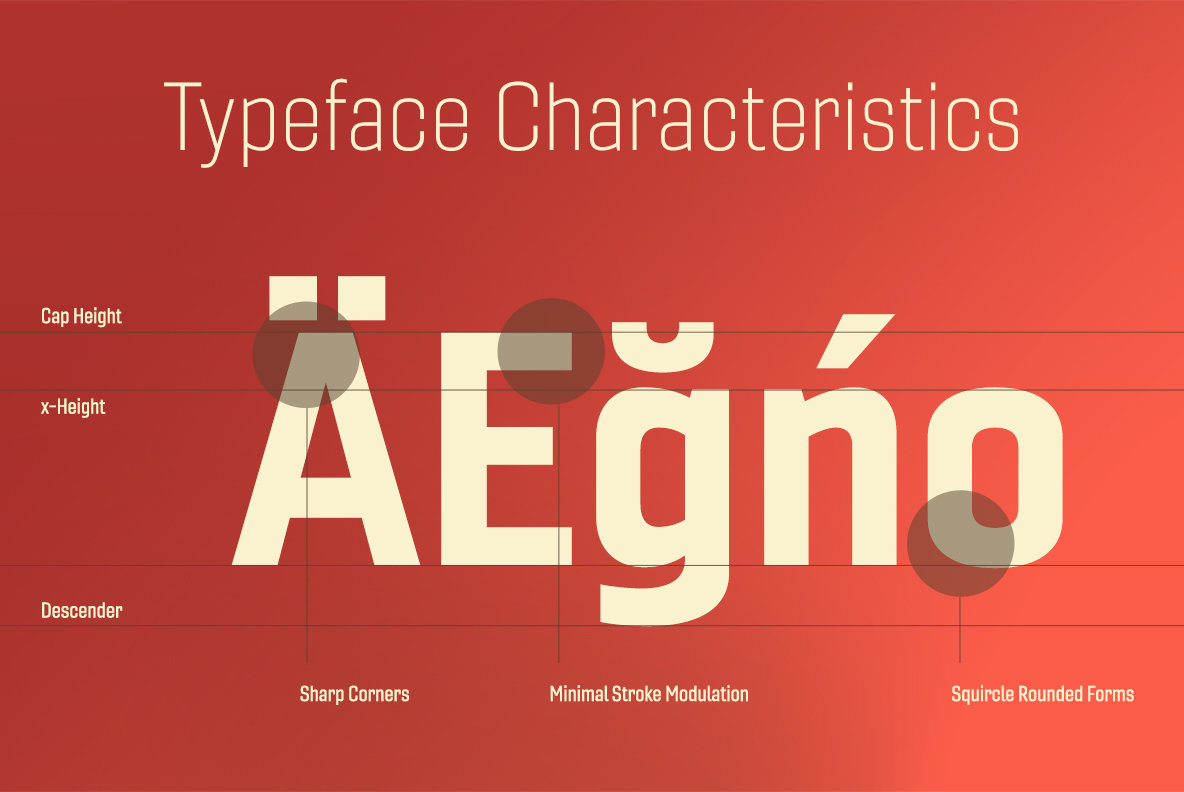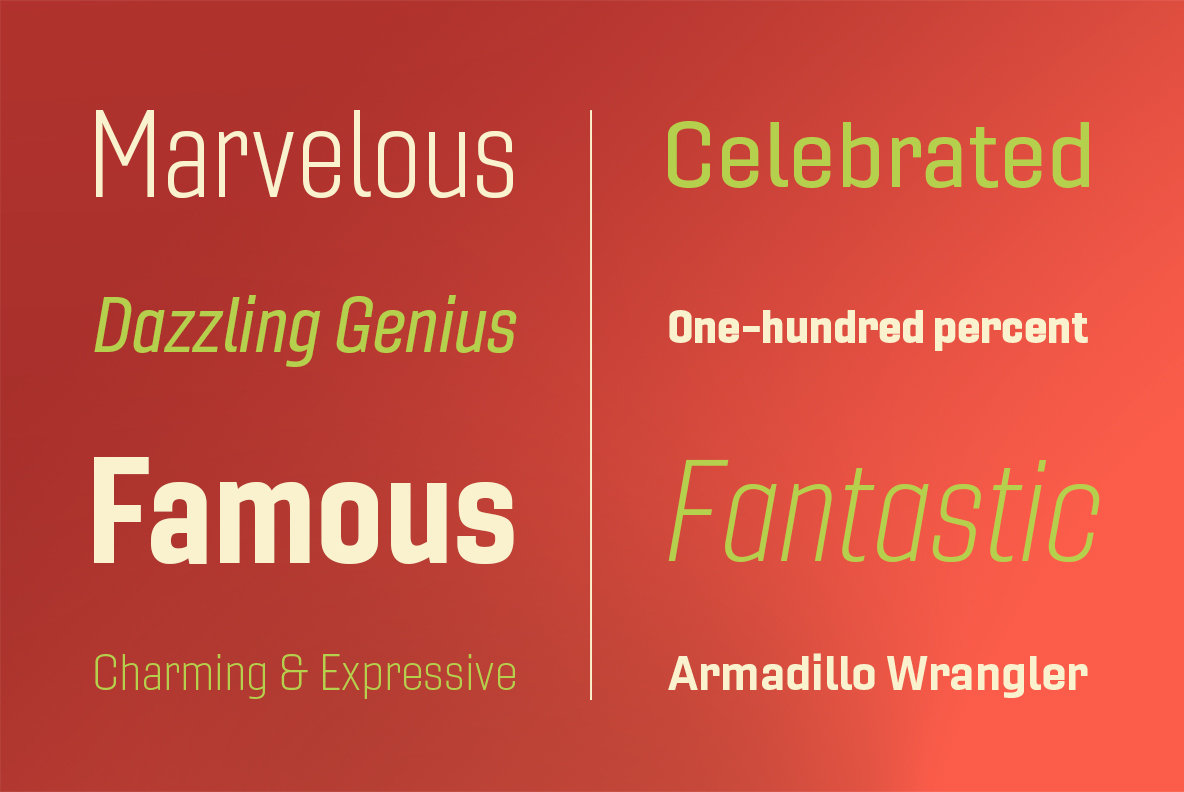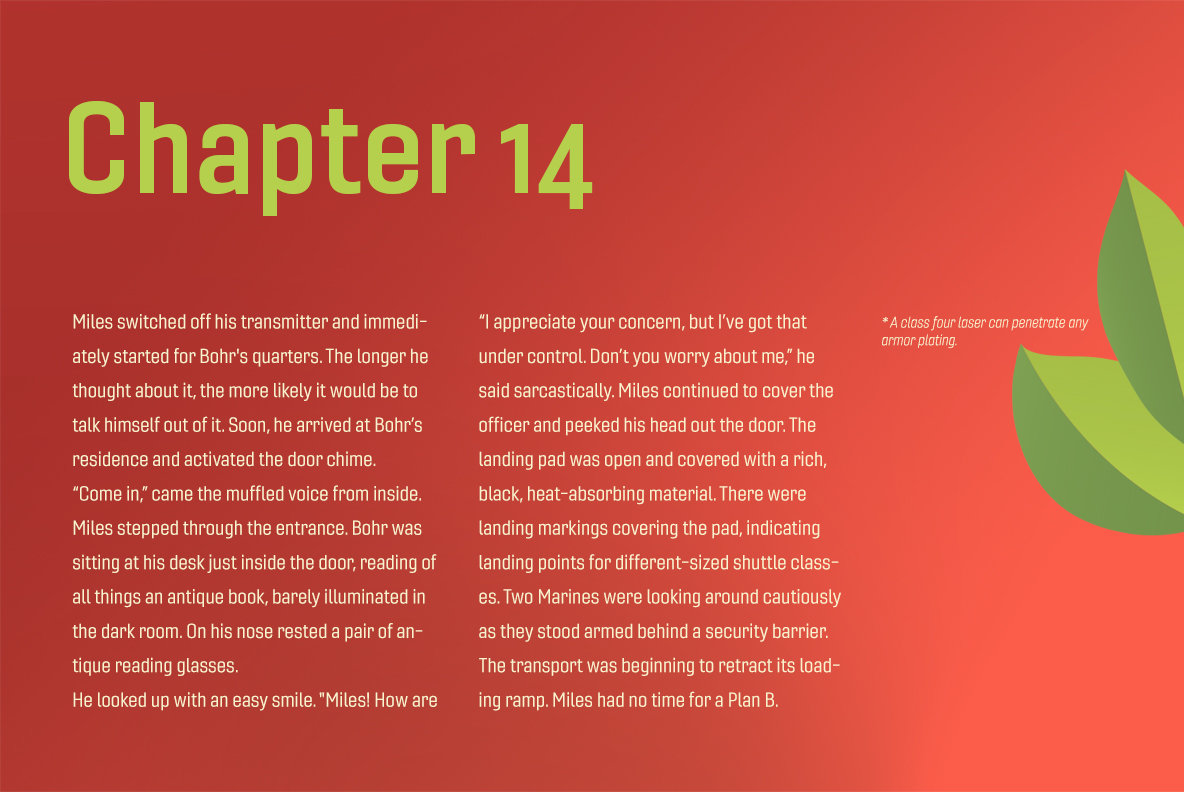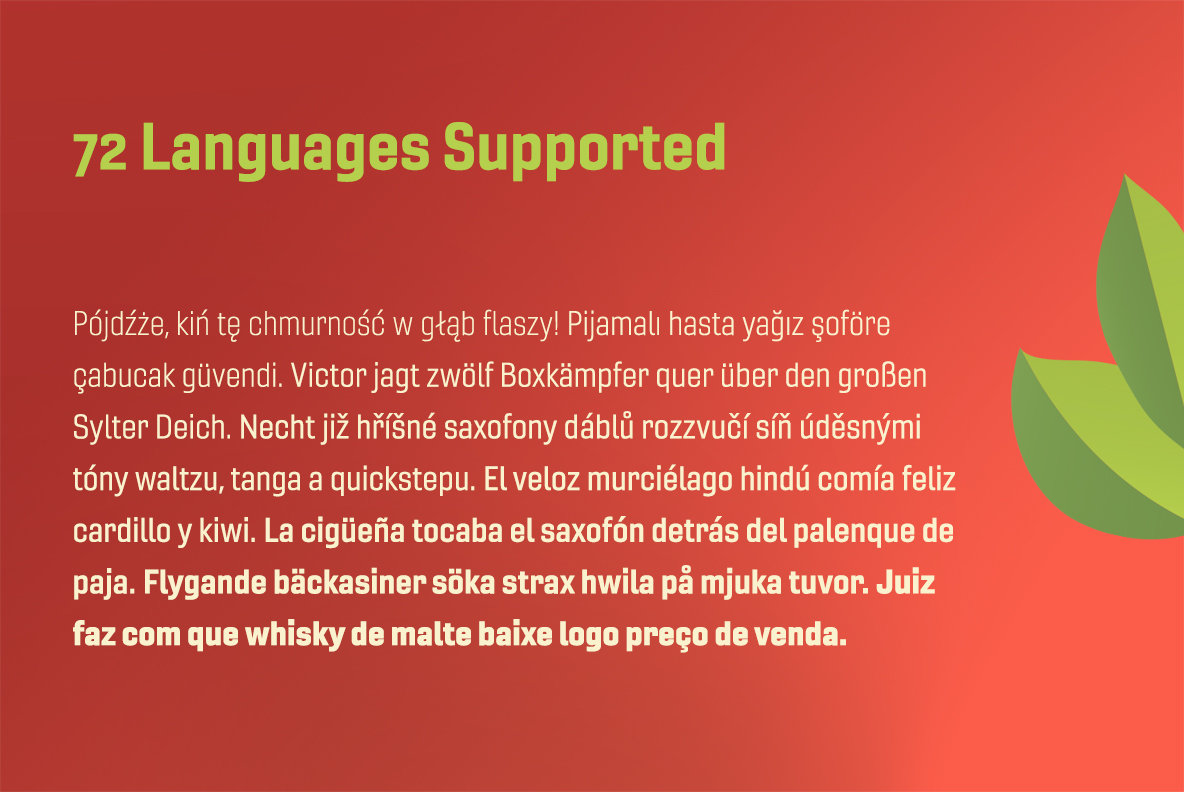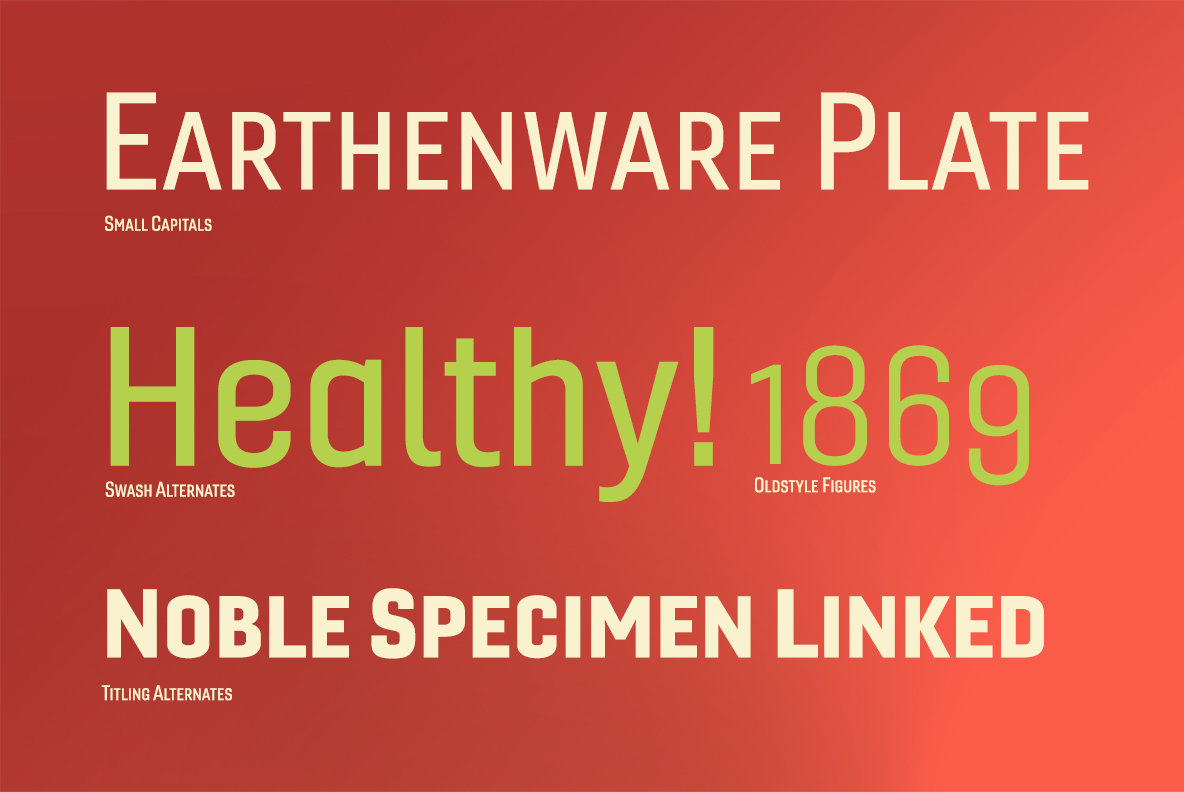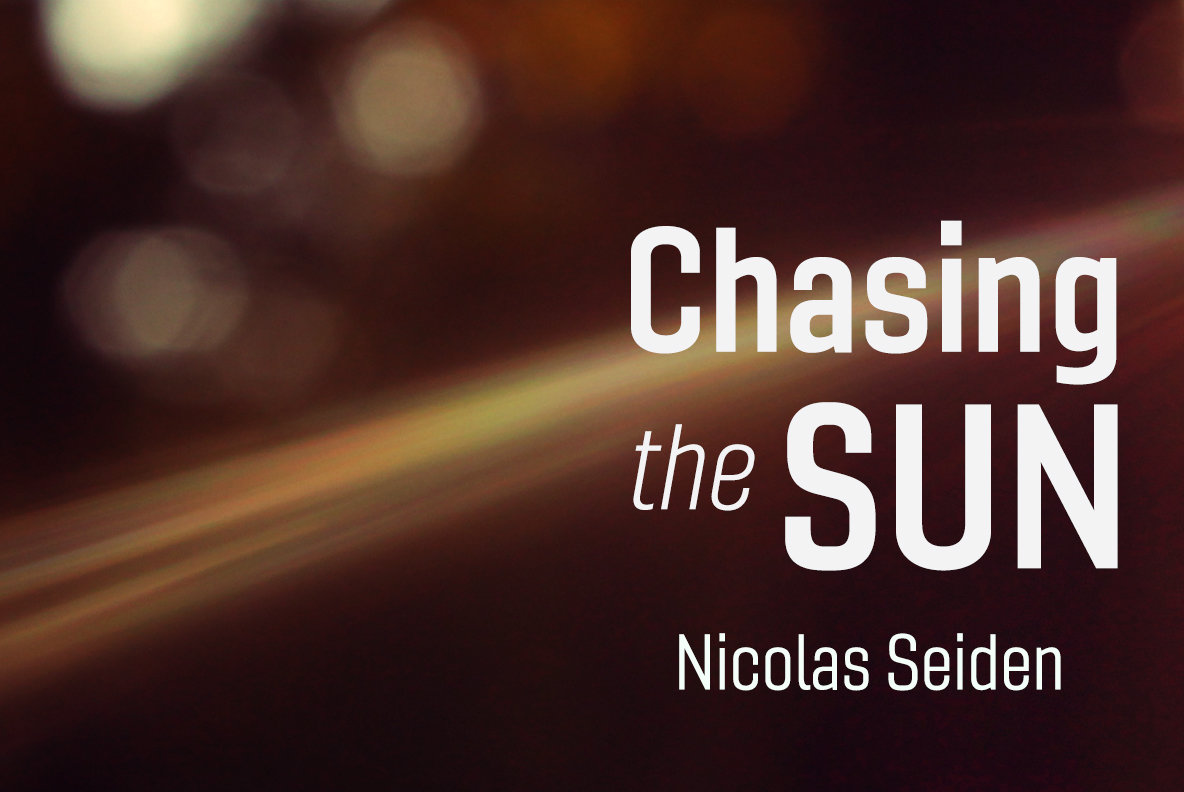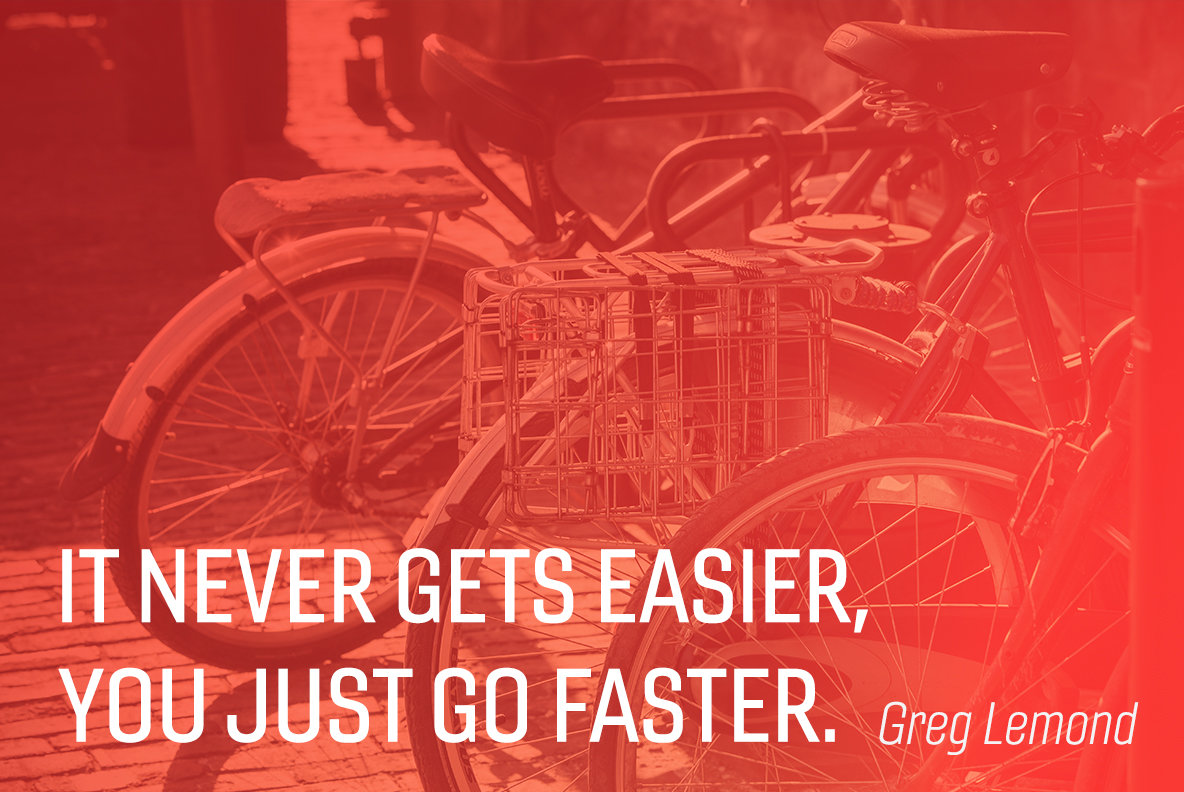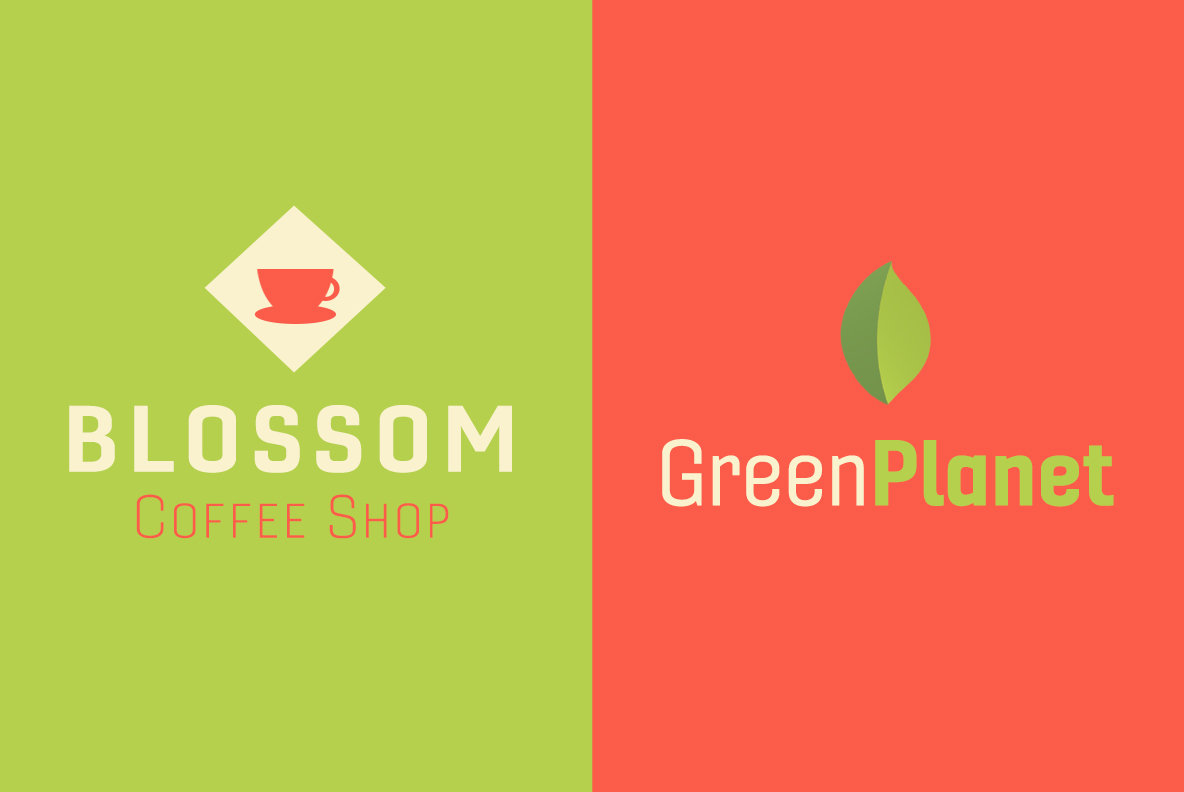
Gineso Font
So when you find yourself (or your project) in a tight space, stir in Gineso to get the right taste for your copy. It may just make all the difference.